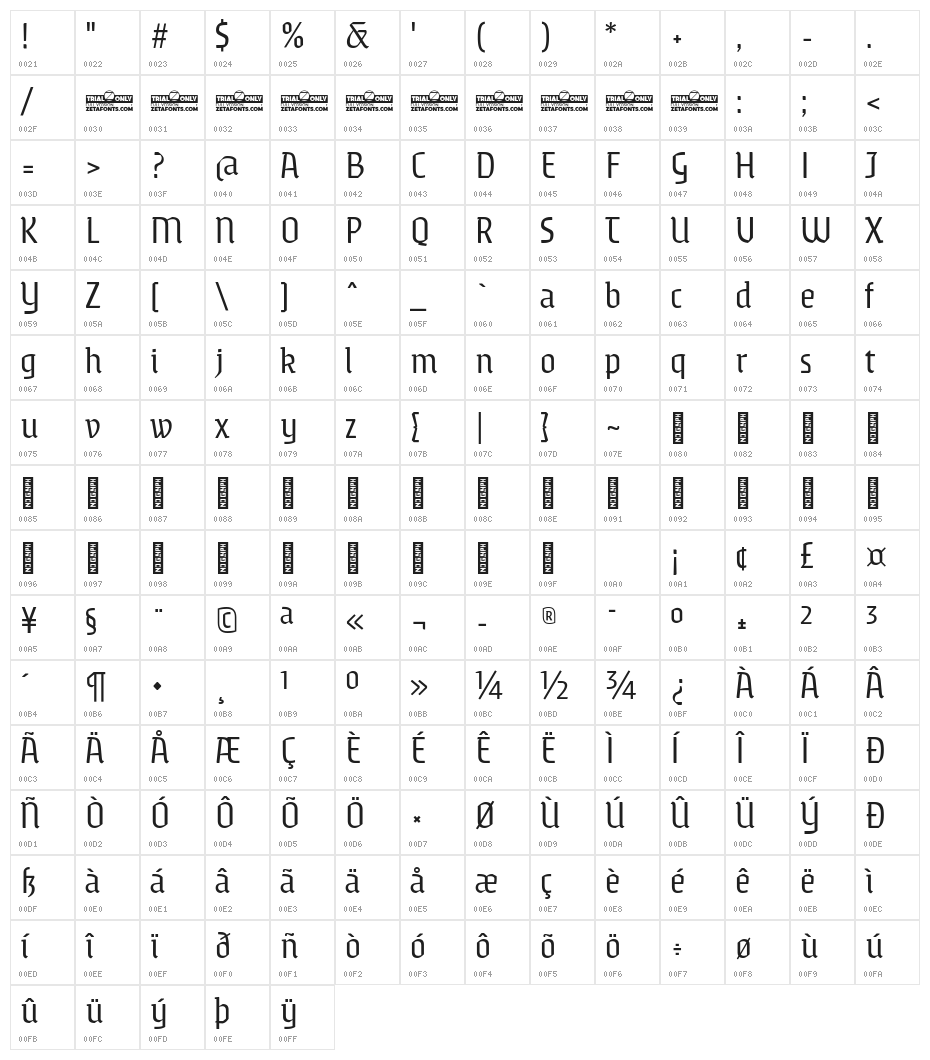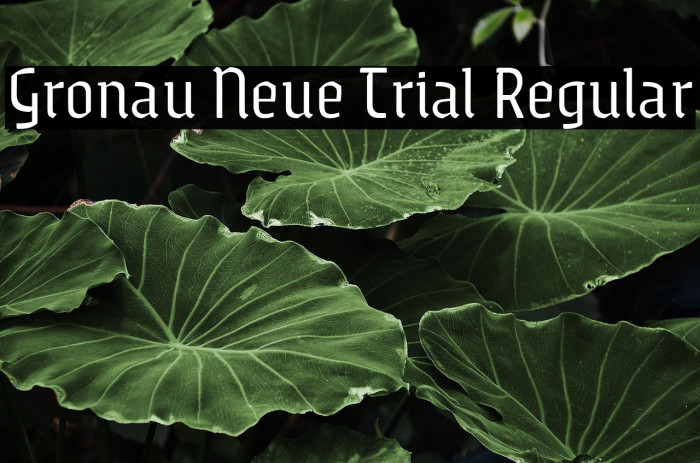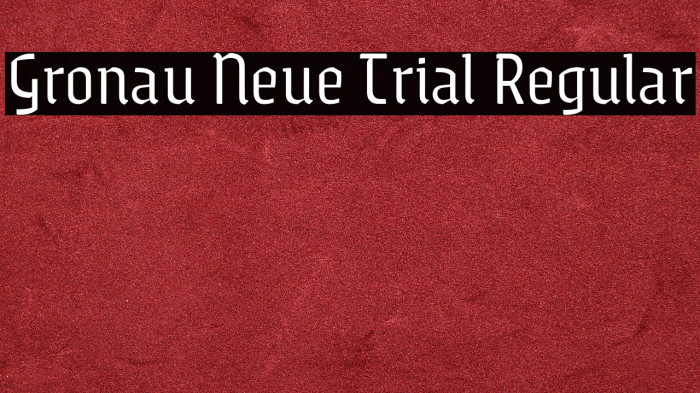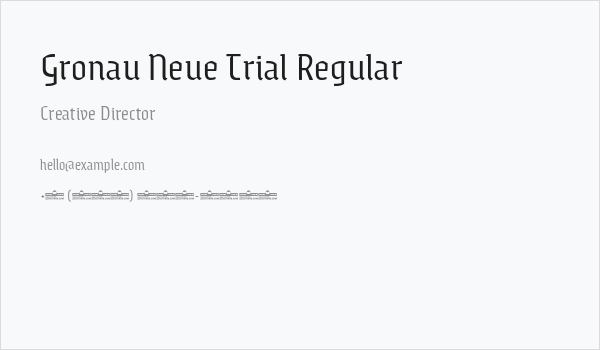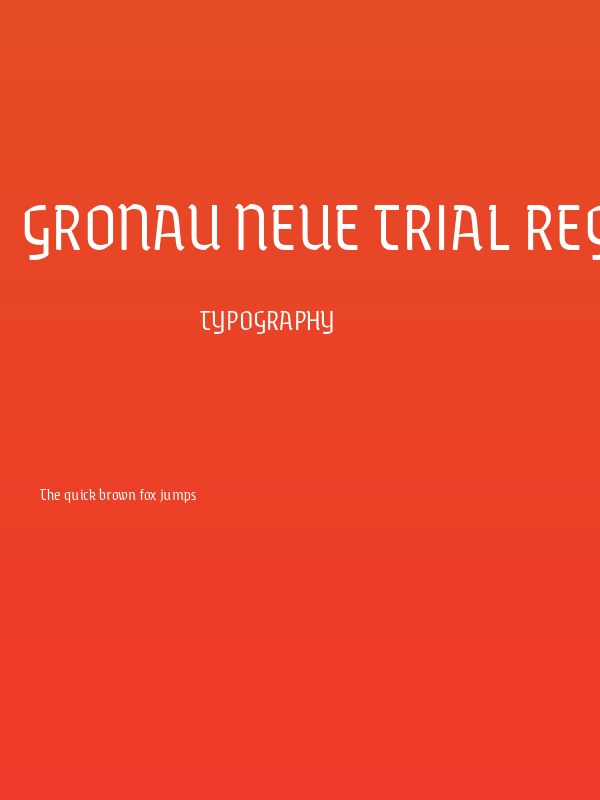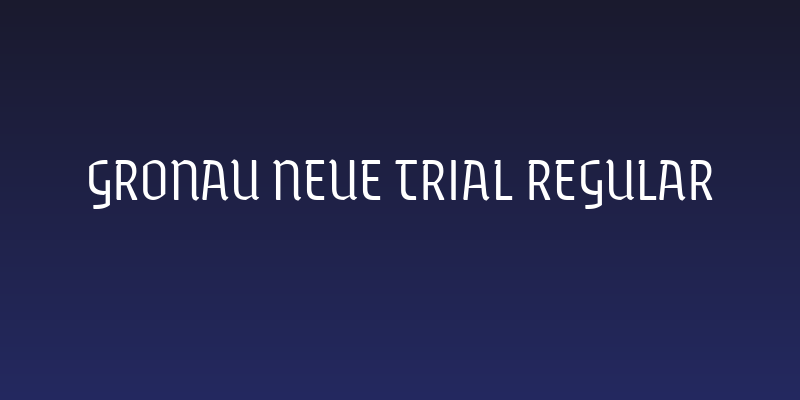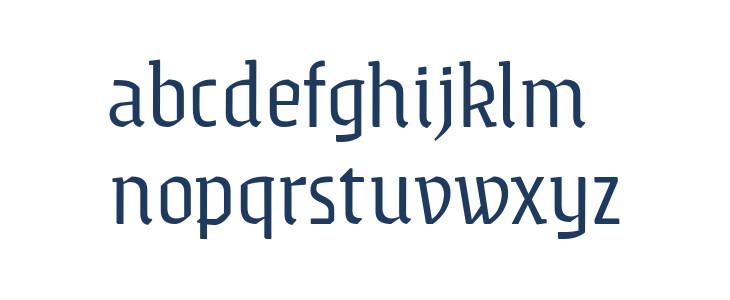
Gronau Neue Trial Regular Font
Gronau Neue Trial Regular Description
This font features a modern and slightly condensed design with a unique blend of geometric and humanist elements. The uppercase letters exhibit a strong presence with clean lines and subtle curves, while the lowercase letters maintain a harmonious flow, enhancing readability. The numerals are consistent with the overall style, offering a balanced appearance. Special characters are thoughtfully designed, maintaining the font's cohesive aesthetic. The font's versatility makes it suitable for various applications, from digital to print media.